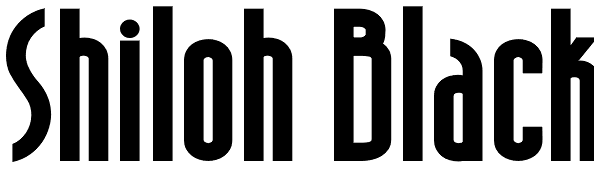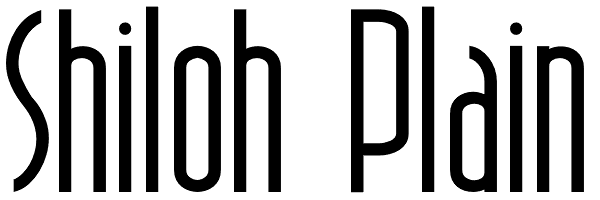
Shiloh
One of our original typefaces, the Shiloh family is a strong Art Deco-inspired font with both serif and sans-serif versions.
Shiloh Black
Shiloh Black Font
Shiloh Plain
Shiloh Plain Font